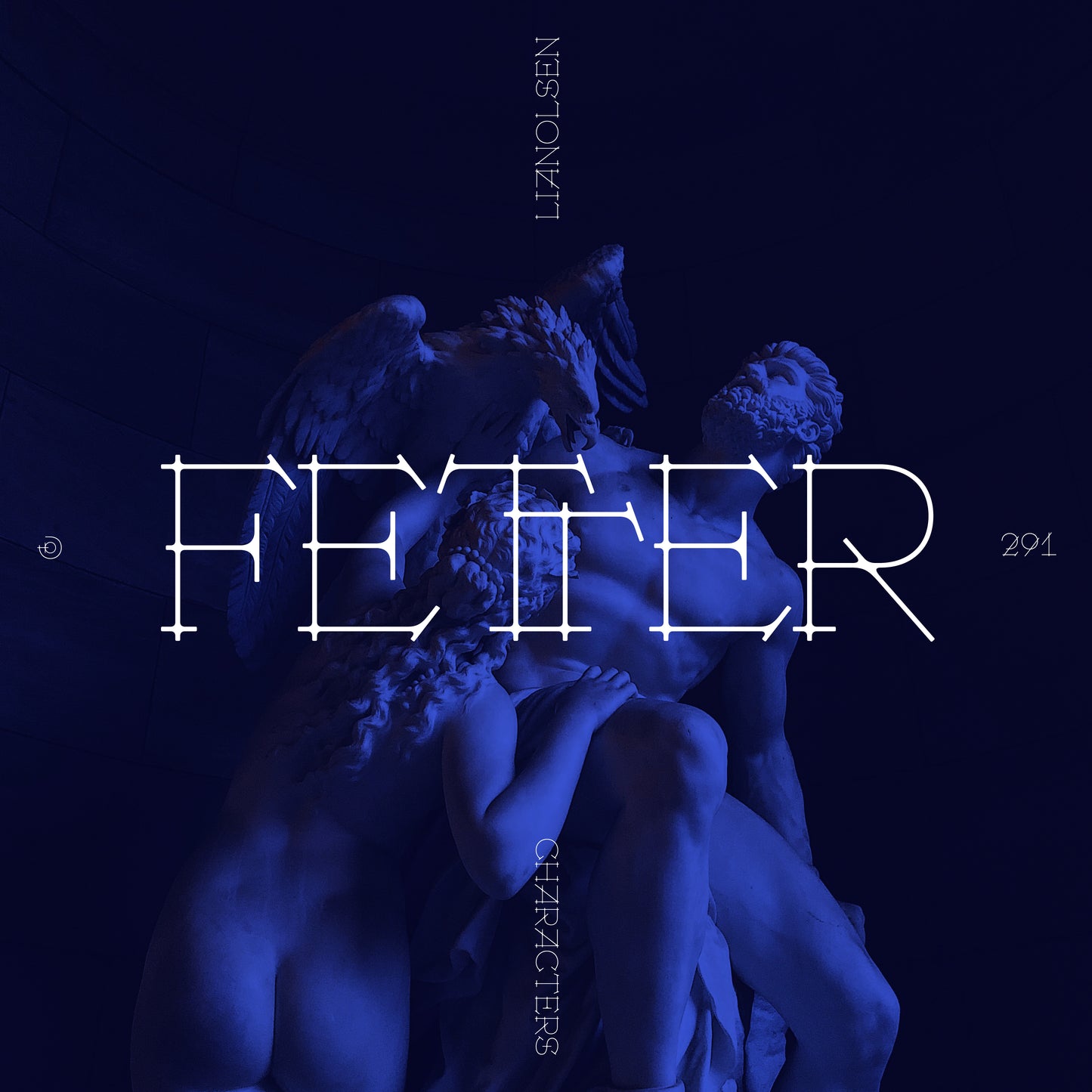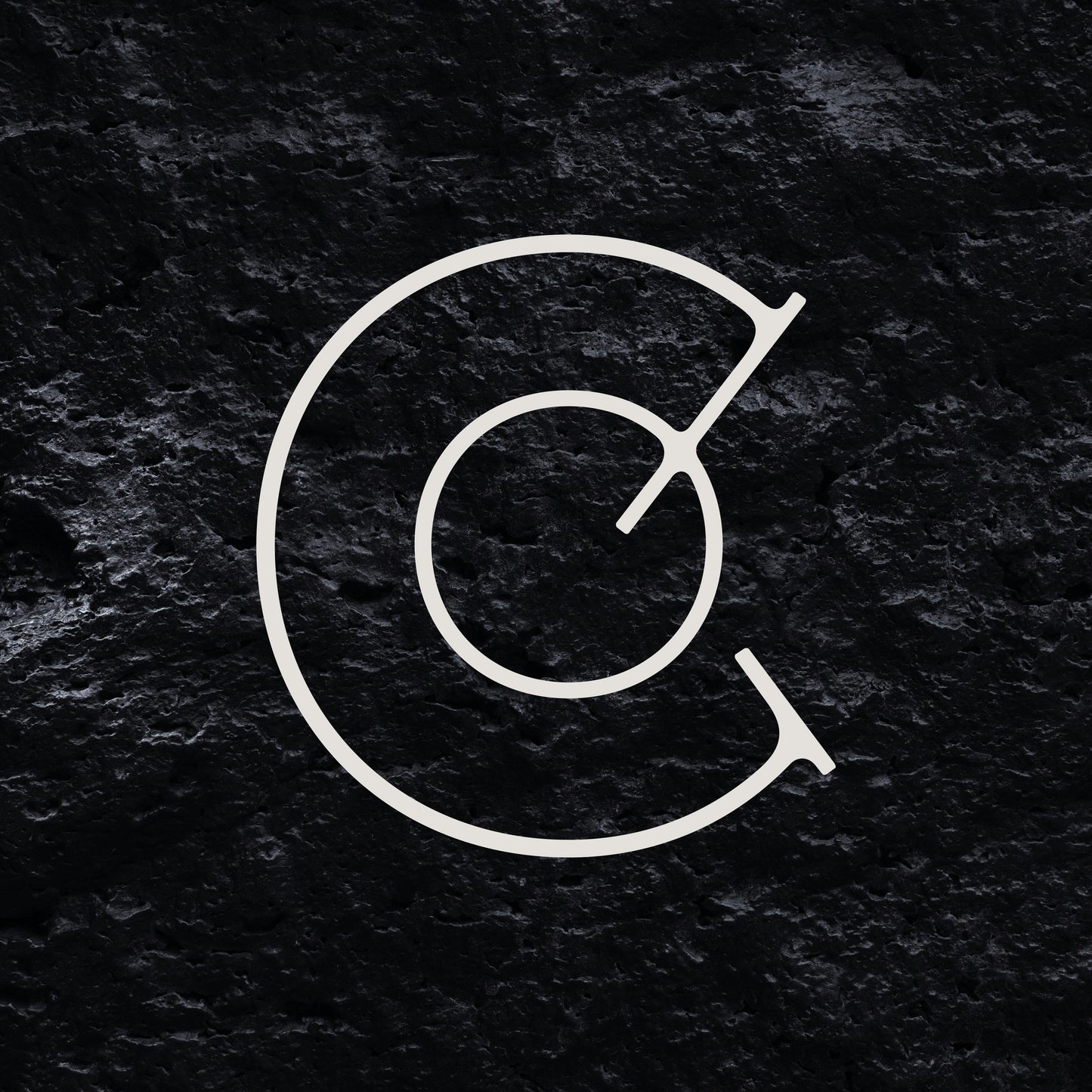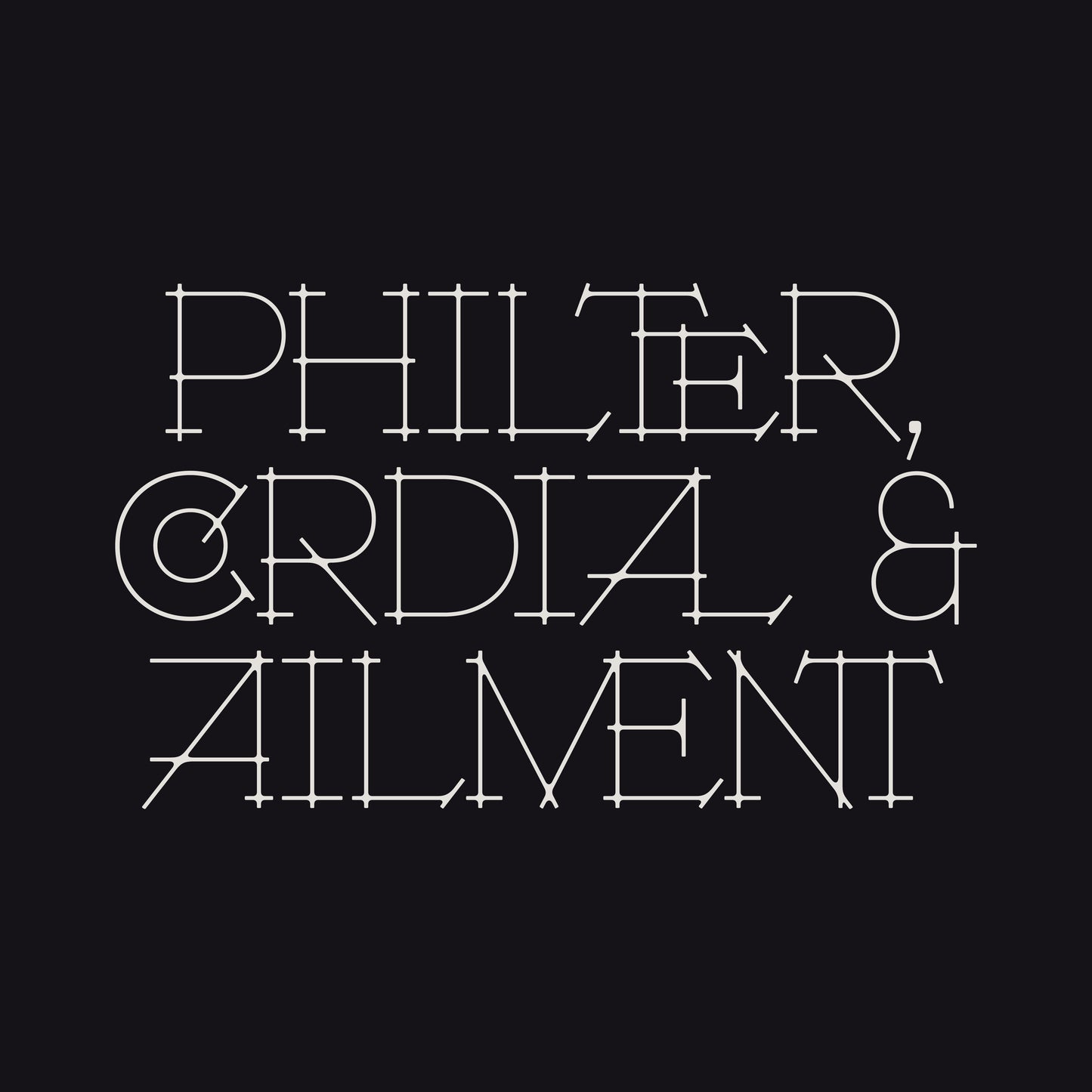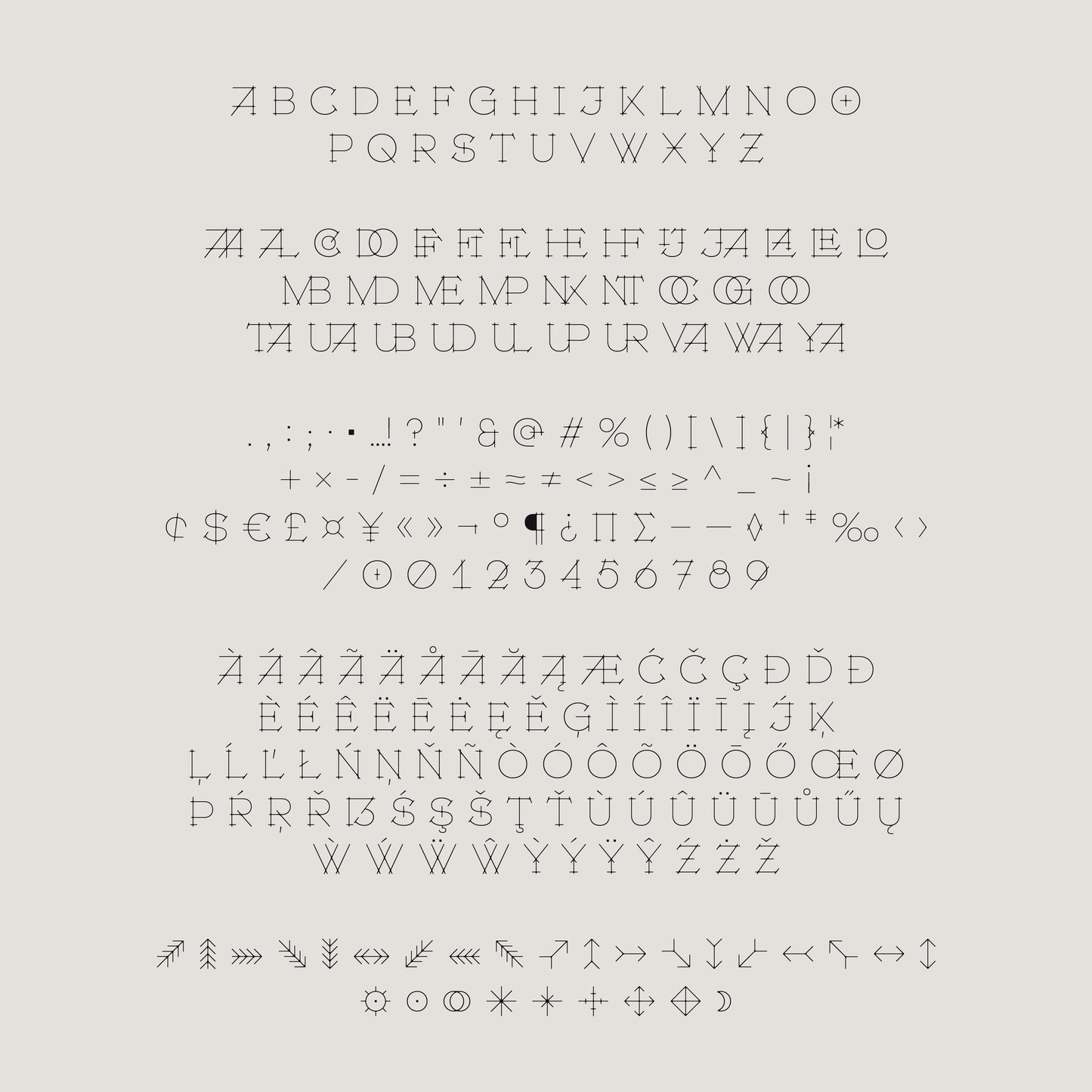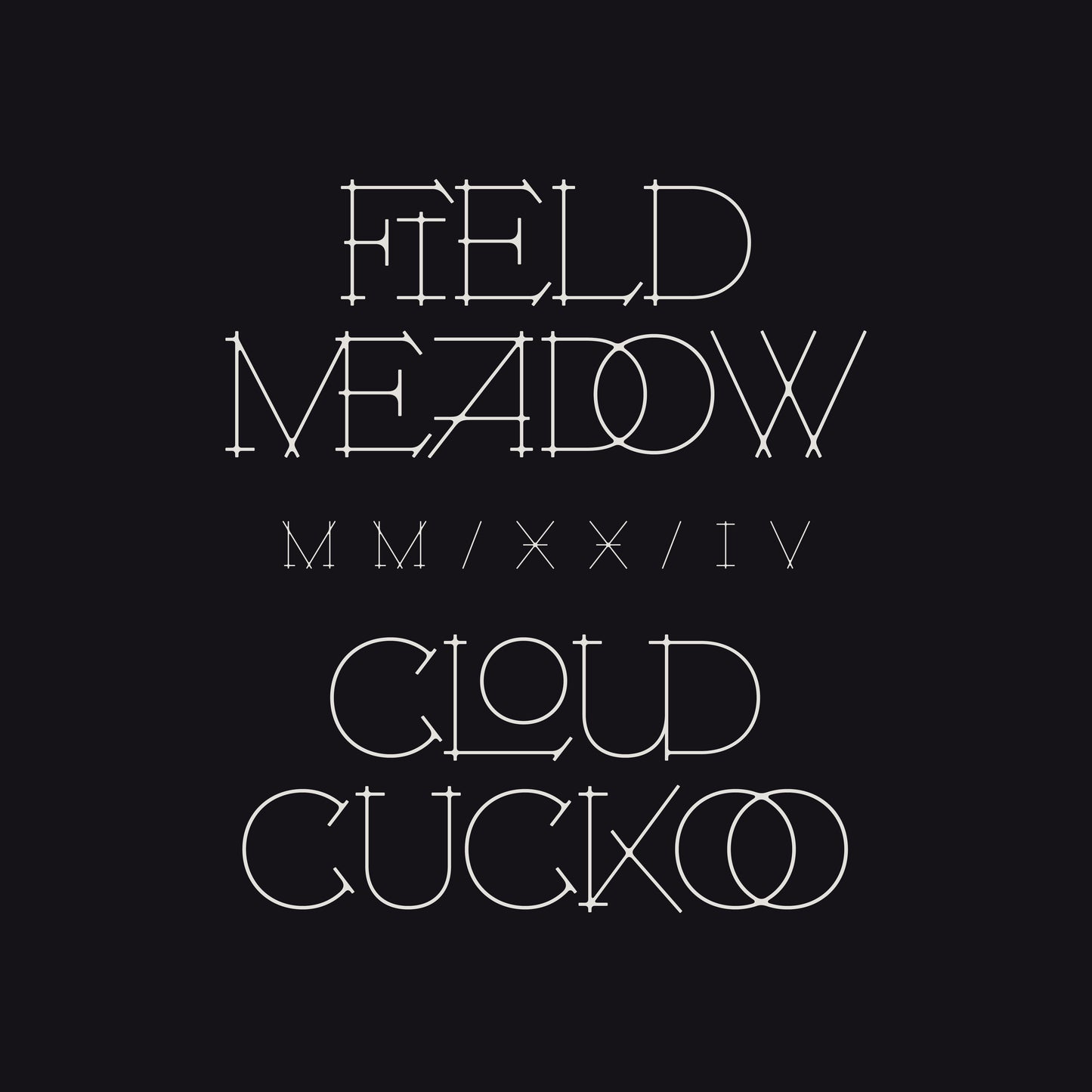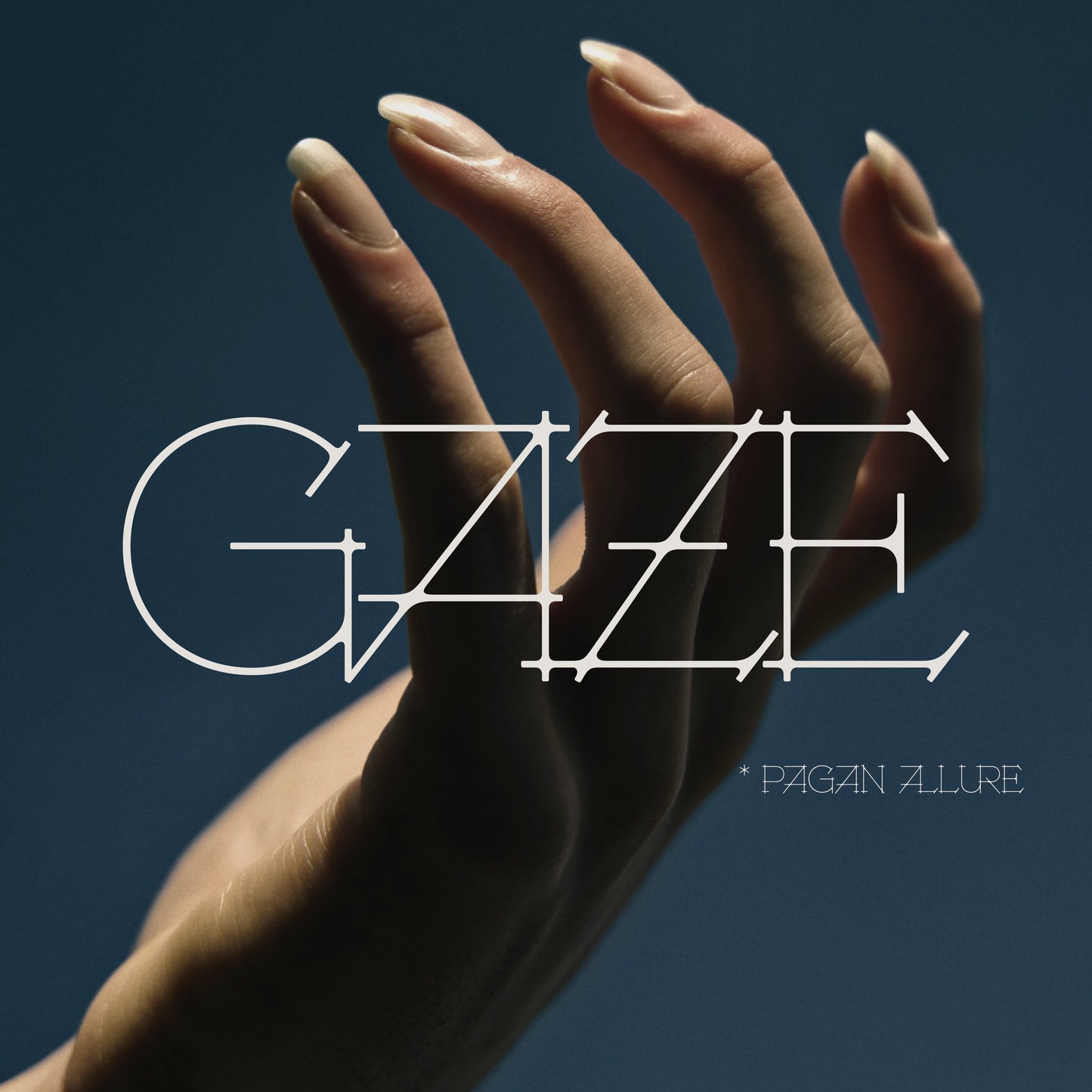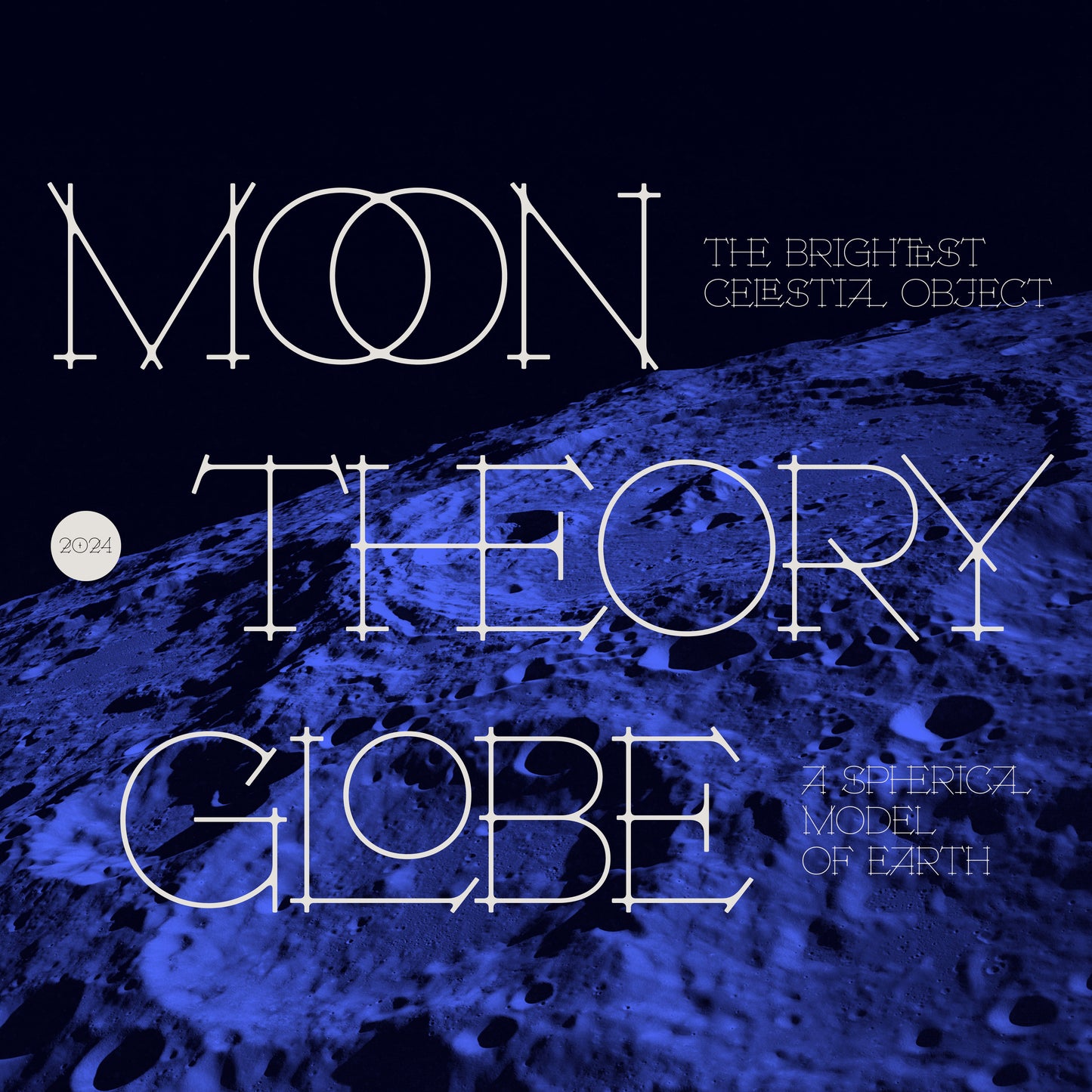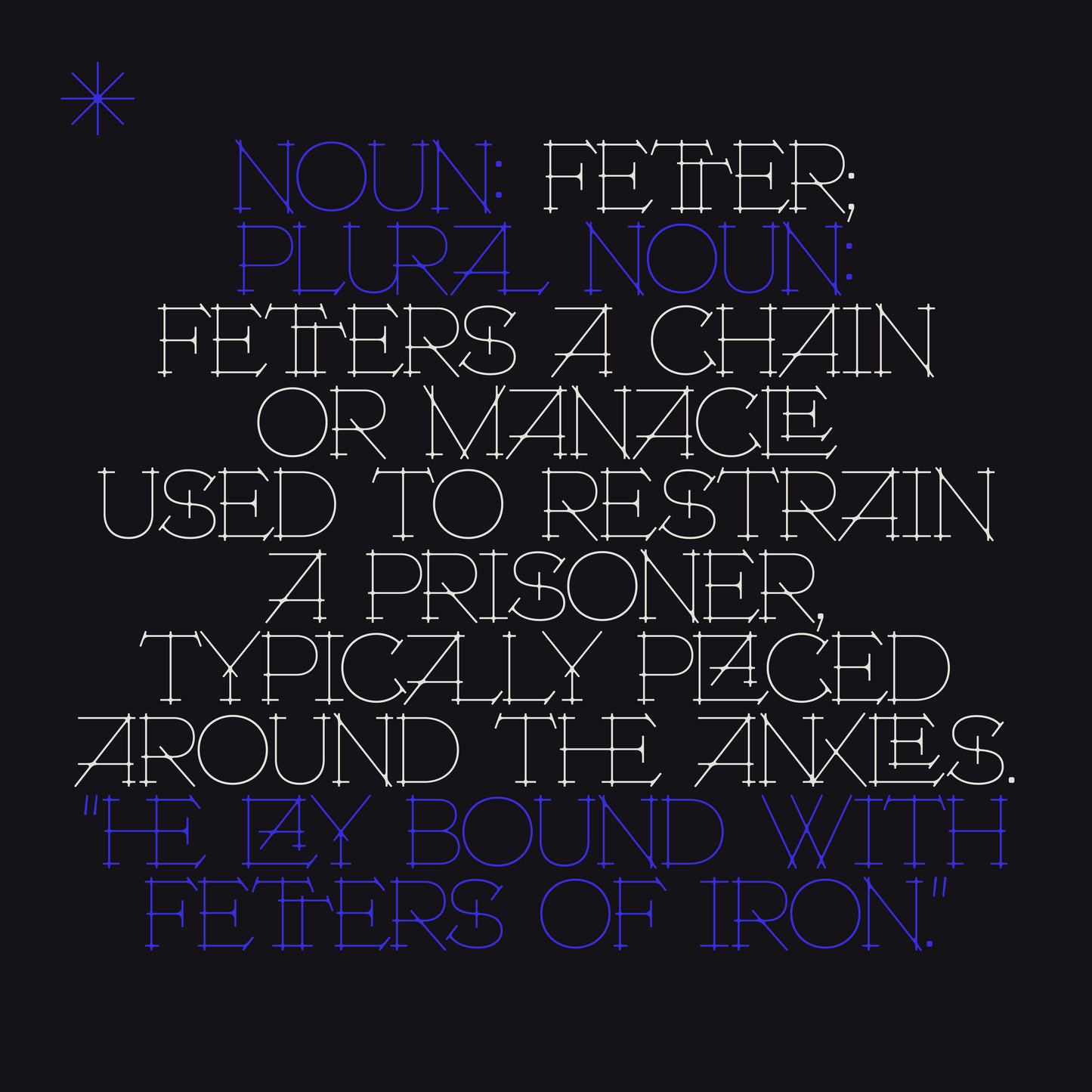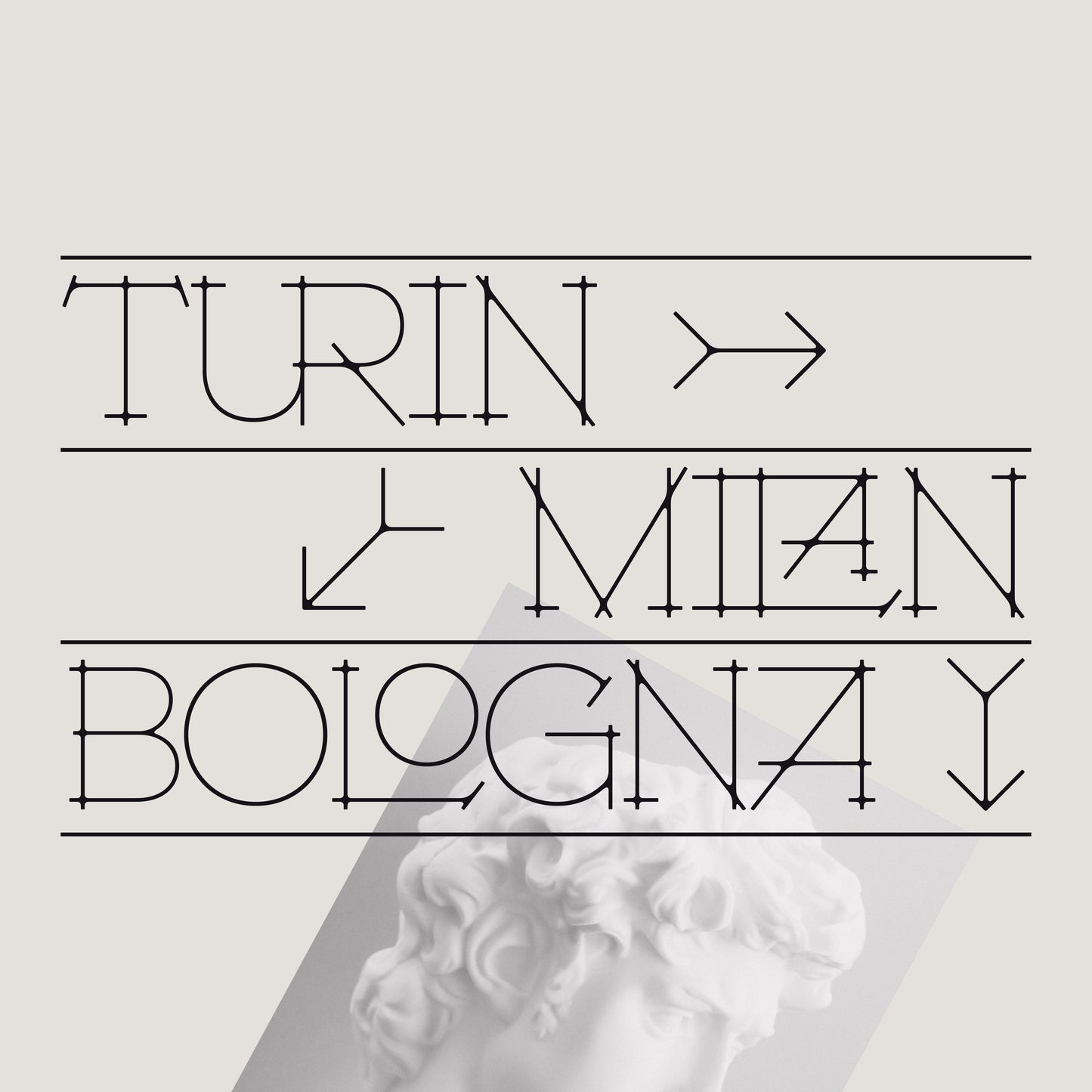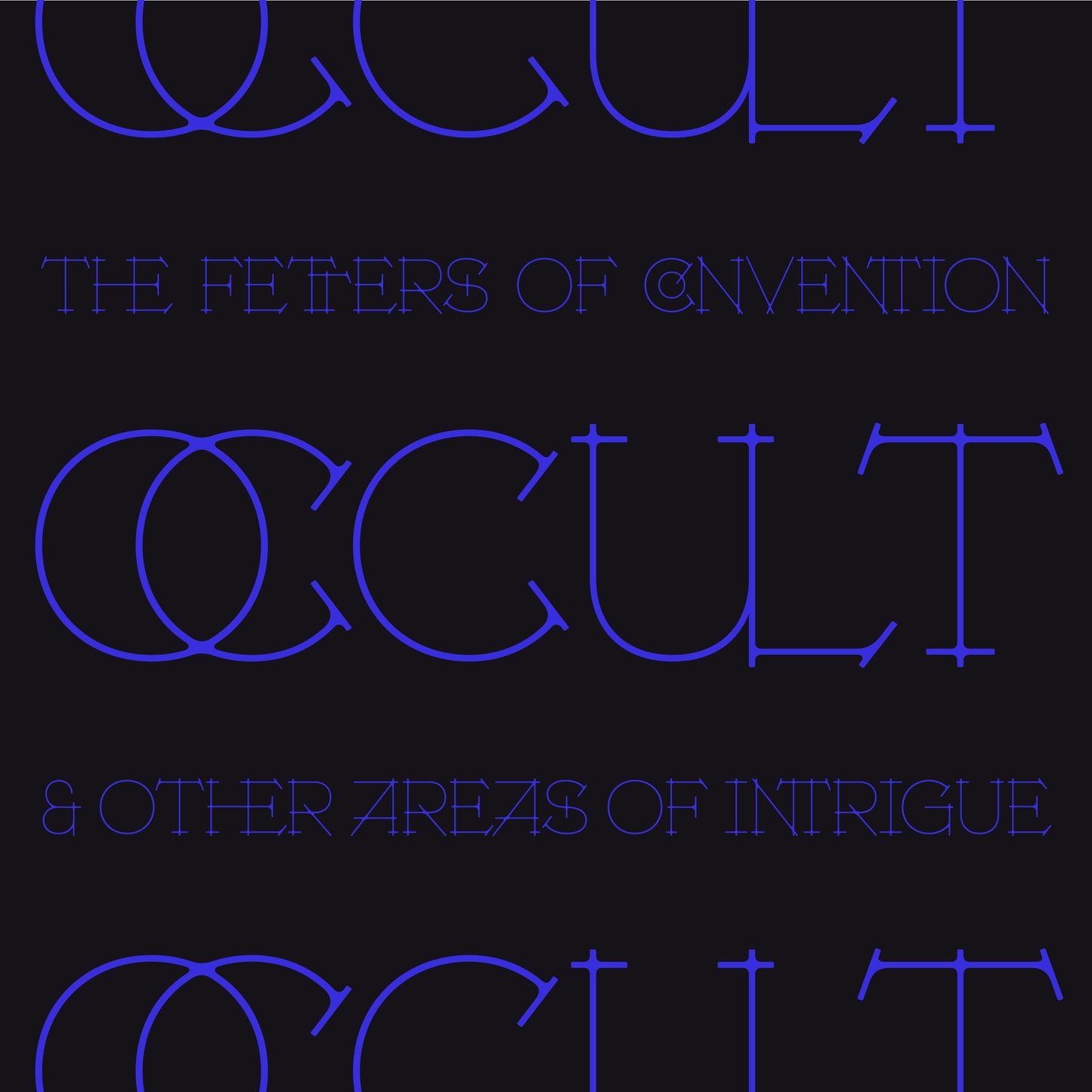
Fetter Display
Johanne Lian Olsen
Fetter Display is a quirky display typeface, featuring a collection of ligatures.
The word ‘fetter’ means to restrict a movement, reflecting the merging of the vertical and horisontal stems of the typeface.
Released in 2024 as one weight in Western European language support. See overview for diacritics, punctuation, mathematic & numerics.